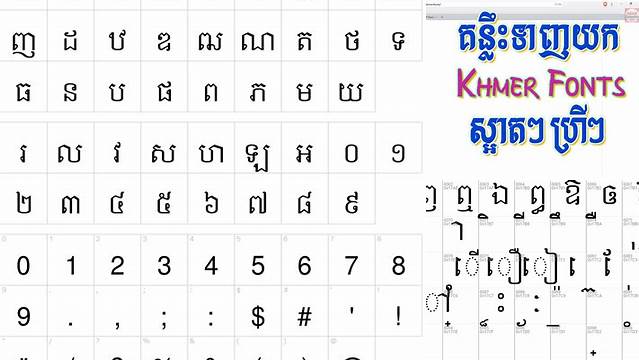
Khmer OS New Font: Free Download & How To Use It
Are you looking to enhance your Khmer script typography? Look no further! In this comprehensive guide, we'll delve into the world of Khmer OS New Font, a popular choice for digital Khmer text. We'll cover everything from its unique characteristics and where to download it for free, to how to install and use it effectively across various platforms and applications. We will also touch upon the history of Khmer OS fonts, their significance, and why Khmer OS New Font remains a favored option among users. Whether you're a designer, student, or simply someone who wants to type in Khmer on your computer, this article is your one-stop resource.
What is Khmer OS New Font?
Khmer OS New Font, at its core, is a Unicode-compliant font designed specifically for the Khmer script, the writing system used for the Khmer language of Cambodia. Unicode compliance is crucial because it ensures that the font can be displayed correctly across different operating systems, browsers, and software applications. Prior to the widespread adoption of Unicode, displaying Khmer text on computers was a significant challenge due to encoding incompatibilities. The Khmer OS fonts, including Khmer OS New Font, played a pivotal role in overcoming these challenges by providing a standardized way to represent Khmer characters digitally. What sets Khmer OS New Font apart is its clean, legible design that makes it suitable for a wide range of applications, from body text in documents and websites to headings and display text in graphic design projects. The font is designed with careful attention to the intricacies of the Khmer script, ensuring that all the complex characters, including vowels, consonants, and diacritics, are rendered accurately and beautifully. This attention to detail is essential for maintaining the readability and aesthetic appeal of Khmer text. Moreover, Khmer OS New Font is often praised for its versatility. It strikes a balance between traditional Khmer letterforms and a modern aesthetic, making it a popular choice for both formal and informal contexts. Whether you're writing a business report, designing a website, or creating social media content, Khmer OS New Font can help you convey your message effectively and stylishly. The font's clear and consistent design also makes it ideal for educational materials, ensuring that students can easily read and understand Khmer text. In addition to its aesthetic qualities, Khmer OS New Font is also highly functional. It includes a comprehensive set of Khmer characters, as well as Latin characters and symbols, allowing users to seamlessly integrate Khmer text with other languages. This is particularly useful for bilingual or multilingual documents and websites. The font also supports various font styles, such as bold, italic, and bold italic, giving users even more flexibility in their typography. Furthermore, Khmer OS New Font's availability as a free download has contributed to its widespread adoption. This accessibility makes it a valuable resource for individuals and organizations who want to use Khmer script in their digital communications without incurring licensing fees. Its popularity also means that it is well-supported across different platforms and applications, ensuring that users can easily install and use the font regardless of their operating system or software.
Key Features of Khmer OS New Font
When you are working with Khmer OS New Font, you'll quickly notice its distinct features that make it a favorite for Khmer typography. Let's break down the key elements: Firstly, its legibility is paramount. The font is crafted with clear, well-defined characters, ensuring that even intricate Khmer glyphs are easily readable on screen and in print. This is crucial for maintaining clarity in documents, websites, and other digital media. The design strikes a perfect balance between traditional Khmer script aesthetics and modern readability standards. Secondly, Khmer OS New Font boasts comprehensive character support. It includes all the necessary Khmer characters, vowels, consonants, and diacritics, ensuring that you can accurately represent any Khmer word or phrase. This comprehensive support extends to Latin characters and symbols, allowing for seamless integration of Khmer text with other languages. This is particularly important for bilingual or multilingual documents and communications. Thirdly, let's talk about Unicode compliance. This is a non-negotiable feature for any modern font, and Khmer OS New Font adheres to the Unicode standard. Unicode compliance guarantees that your Khmer text will display correctly across different operating systems, browsers, and applications. Say goodbye to garbled characters or display issues – Unicode ensures consistency and reliability. Another important aspect of Khmer OS New Font is its versatility. It's not just a one-trick pony; this font adapts well to various design contexts. Whether you're crafting body text for a website, designing eye-catching headlines, or creating professional documents, Khmer OS New Font fits the bill. Its balanced design makes it suitable for both formal and informal applications. In terms of style variations, Khmer OS New Font typically comes in regular, bold, italic, and bold italic styles. These variations provide flexibility in your typography, allowing you to emphasize certain words or phrases, create visual hierarchy, and add stylistic flair to your designs. The availability of different styles enhances the font's usability across a wide range of projects. Furthermore, we must highlight the fact that Khmer OS New Font is free to download and use. This accessibility is a major factor in its popularity. You don't need to pay licensing fees or worry about copyright restrictions – you can simply download the font and start using it in your projects. This makes it an ideal choice for students, designers, and anyone who wants to use Khmer script in their digital communications without incurring costs. Lastly, the availability and support for Khmer OS New Font are noteworthy. Due to its widespread use, you can find plenty of resources, tutorials, and support communities online. If you encounter any issues or have questions about using the font, you're likely to find answers and assistance readily available. This robust support network adds to the font's appeal and usability.